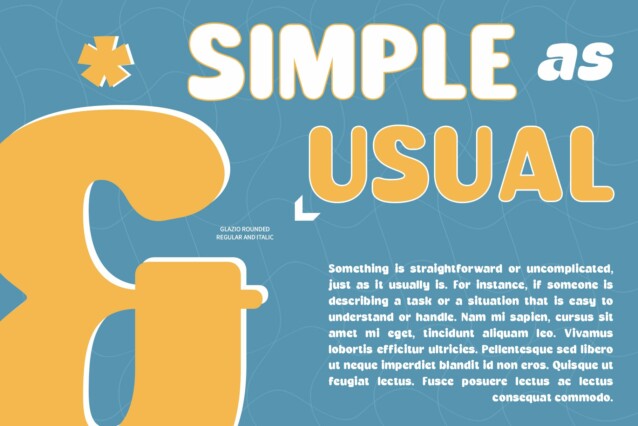
Glazio Rounded Font
Glazio Rounded Font is a bold sans-serif font characterized by its thick, smooth edges that create a delightful, playful appearance. The rounded letterforms give the font a soft, approachable feel, making it ideal for designs that seek to convey a sense of fun and friendliness.